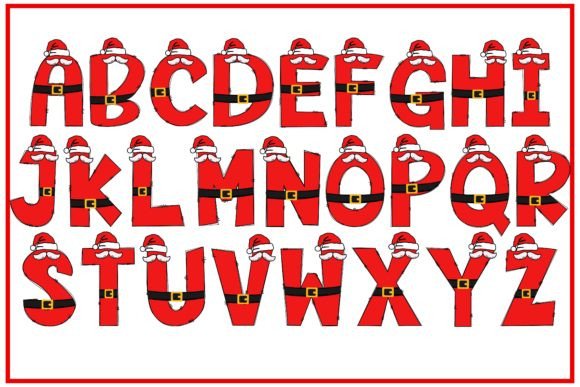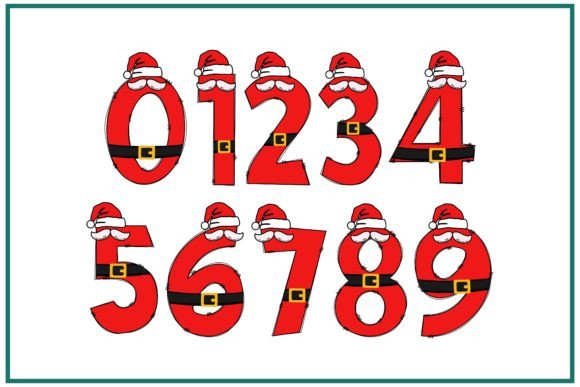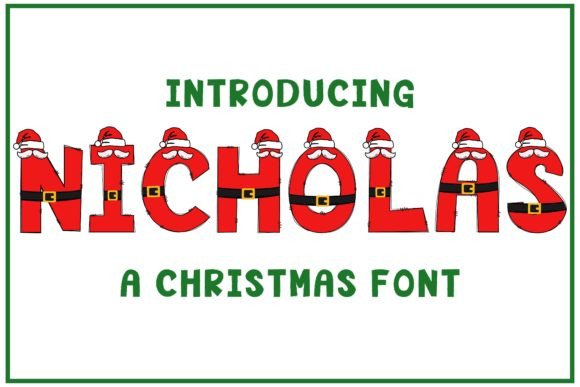
Nicholas Font
About Nicholas Font
Introducing Nicholas, the adorable color font that will bring a touch of Christmas magic to your designs! With its charming Santa hats adorning each letter, Nicholas is perfect for all your holiday projects, children’s activities, and school assignments.
This playful and authentic font captures the spirit of Christmas with its cute Santa hat decorations. Whether you’re creating Christmas cards, invitations, posters, or any other festive design, Nicholas will add a delightful and whimsical touch to your creations.
Children will especially love the cheerful and friendly vibe of Nicholas. It’s an excellent choice for crafting educational materials, worksheets, and classroom decorations. You can also use it for holiday-themed activities, such as coloring sheets, puzzles, and games, to engage and entertain young learners.
The versatility of Nicholas makes it suitable for a wide range of Christmas-related designs, from greeting cards and gift tags to banners and social media graphics. Its playful and joyful style will instantly evoke the holiday spirit and create a warm and inviting atmosphere.
So, embrace the playfulness and authenticity of Nicholas and let it enhance your Christmas projects, children’s activities, and school assignments. Spread the holiday cheer with this adorable color font and make your designs truly memorable and delightful.